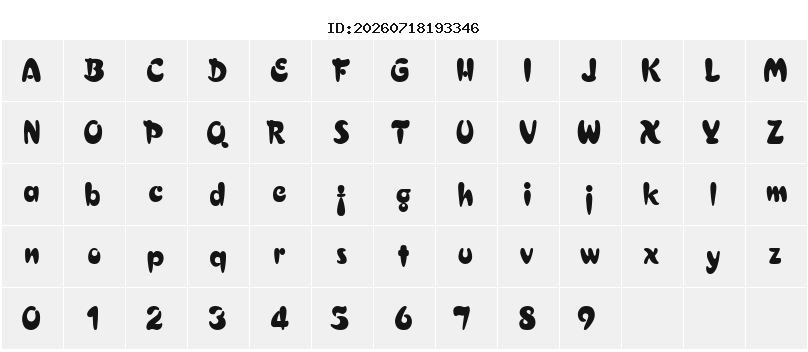
Crest Preview
• Font Name: Crest
• Full Font Name: Crest
About Crest.ttf
Crest.ttf is a modern, elegant sans-serif font designed for ultimate readability and visual harmony. Perfect for branding, headlines, web design, and print materials.